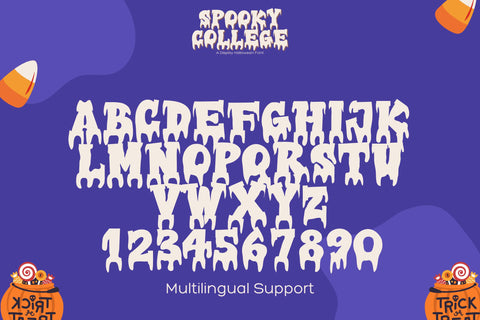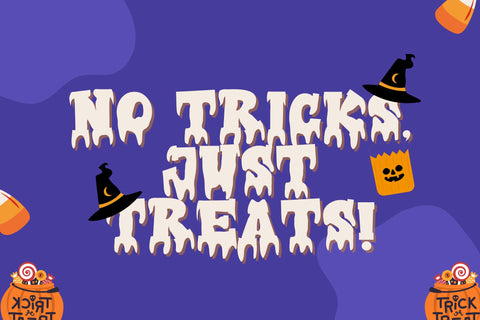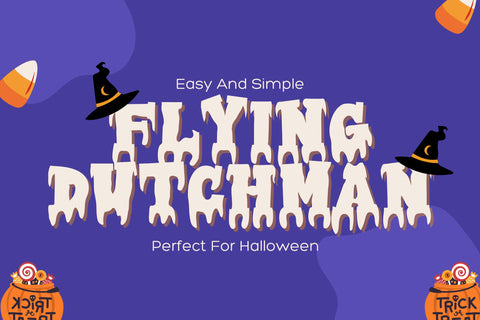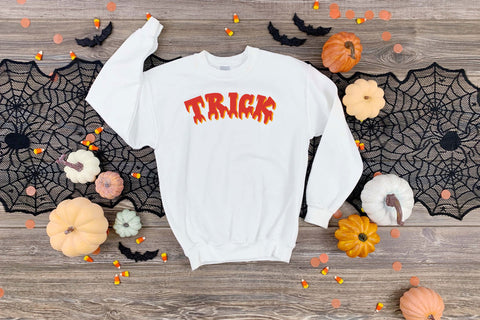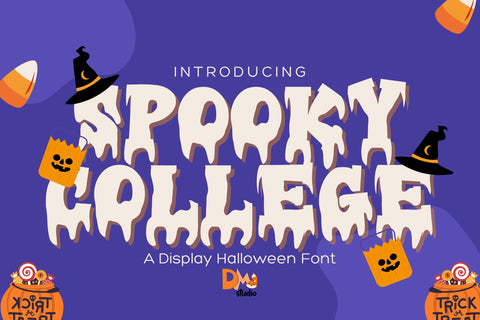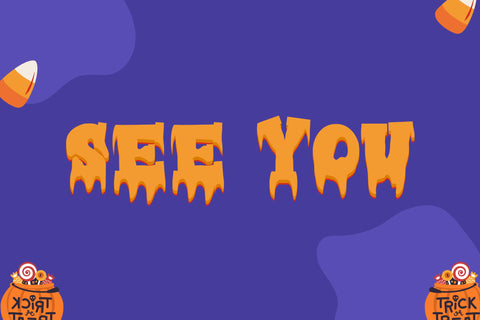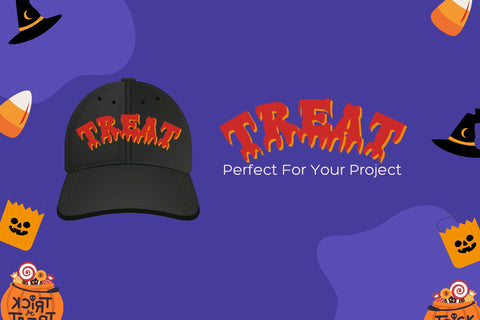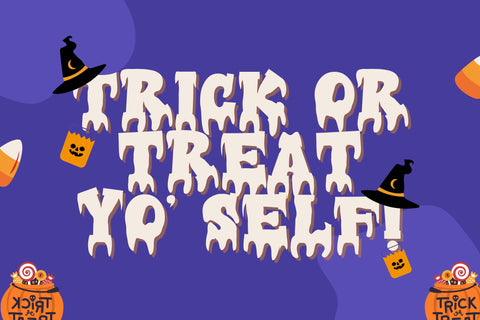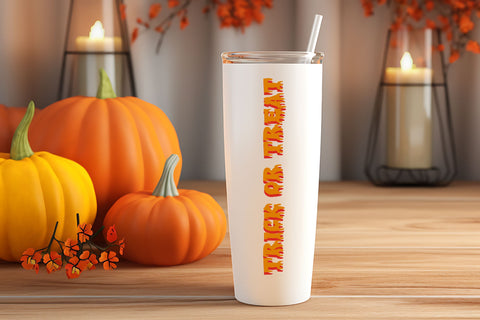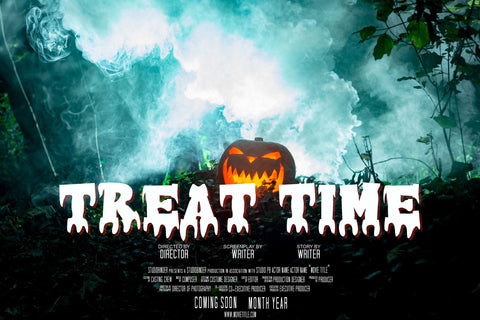
Spooky College
Spooky College – A Display Halloween Font
Spooky College is a bold and eerie display font designed to bring a haunting yet playful touch to your Halloween-themed projects. With its strong collegiate-style lettering infused with spooky elements, this font is perfect for Halloween party invitations, eerie posters, haunted house decorations, trick-or-treat bags, and festive apparel. Its bold and stylish look ensures that your designs stand out with a chilling yet fun aesthetic.
• Halloween-Inspired College Style: A bold collegiate font with spooky details for a haunting yet playful look.
• Perfect for Halloween Designs: Ideal for party invitations, posters, haunted house décor, trick-or-treat bags, and seasonal branding.
• Eye-Catching & Bold: Ensures visibility and impact for spooky-themed typography.
• Complete Character Set: Includes uppercase, lowercase, numbers, punctuation, and multilingual support.